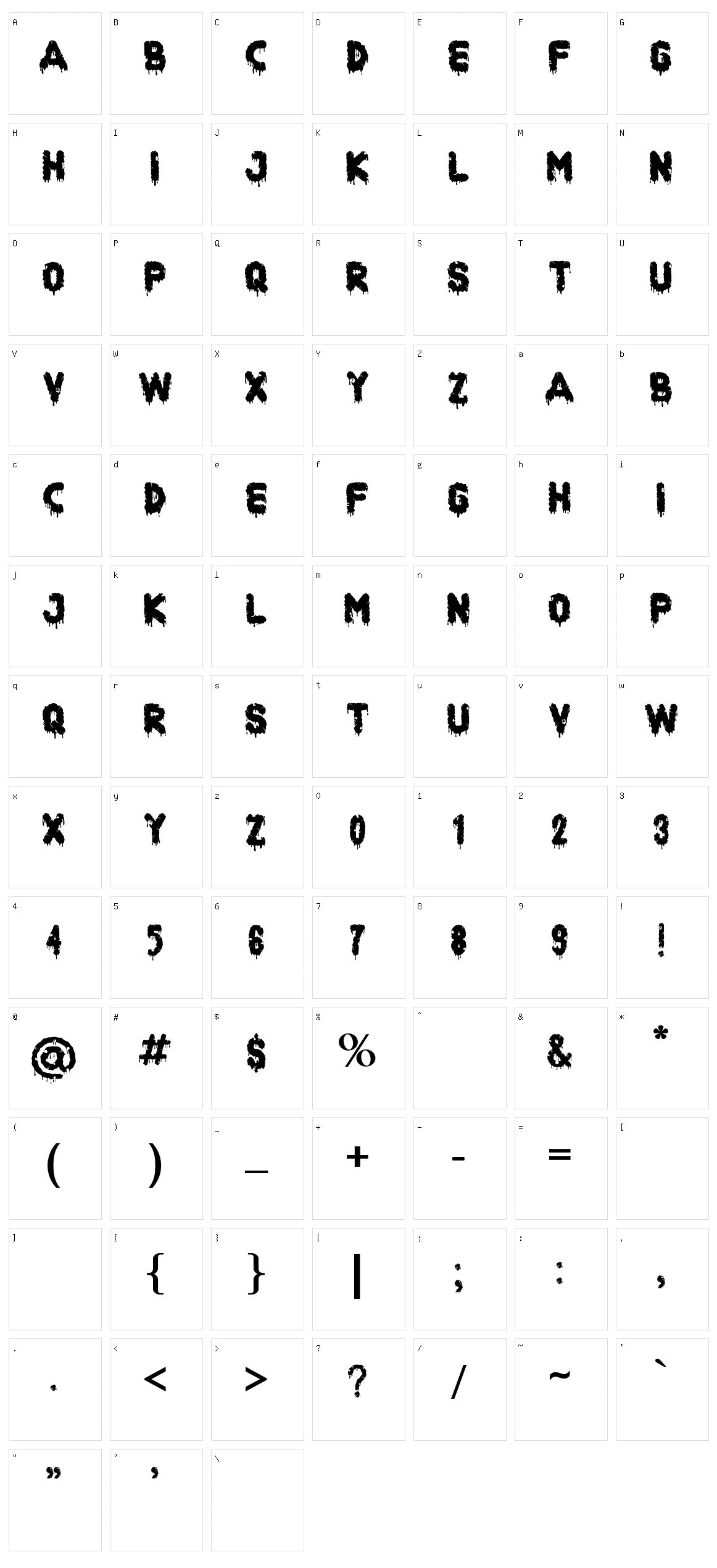
The free font Histery is carefully designed by Kong Font, showcasing a thoughtful balance of creativity and usability and falls under the Horror font style. When you download the ZIP file, it contains only 194.61 KB of font files, making it lightweight and quick to download. Please review the license details below to understand permitted usage and distribution rights. If license information is not available, we recommend using this font for personal projects only or contacting the author directly for commercial usage permissions.